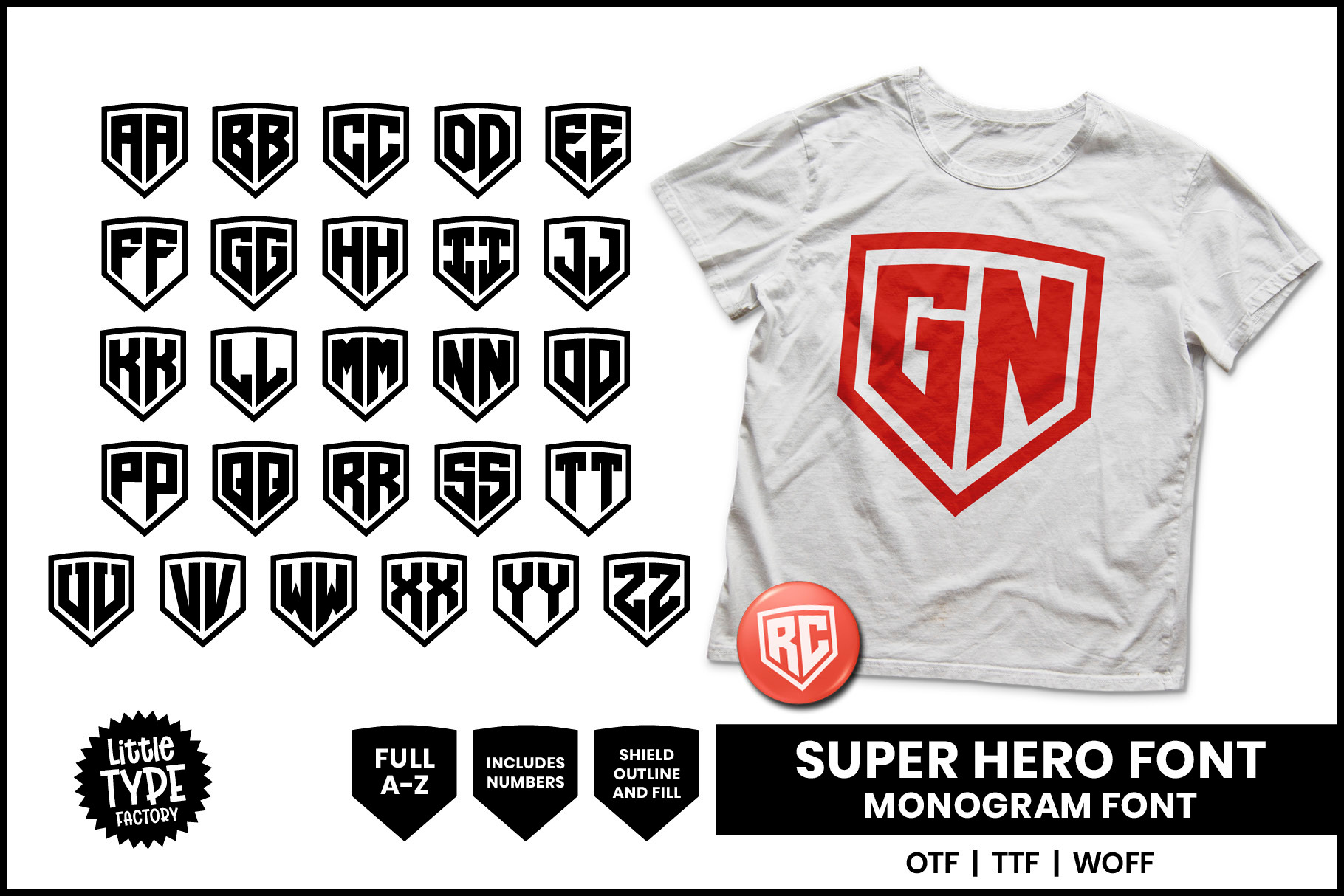
Super Hero Font | Monogram Shield
Super Hero Font | The Ultimate Shield Maker Monogram Typeface
Transform your designs into iconic superhero creations with this amazing font!
This superhero font is specifically designed to make it incredibly simple to create your own personalized superhero shield monograms in just seconds. Whether you're crafting for fun, gifting, or branding, this font is your go-to tool!
Features of the Superhero Monogram Font:
2-Letter Monogram Design: This versatile superhero font is perfect for creating logos, icons, and emblems featuring two characters. Inspired by Marvel & DC: Featuring bold styles reminiscent of Marvel fonts, Avengers fonts, and DC Comics fonts, it's perfect for capturing the essence of your favorite superhero universes. Super man Font Generator: This font is in a super man logo font style, complete with shield outline and fill to craft that iconic look. Numbers Included: The font is versatile enough to include numbers, giving you even more options for customization.
Perfect for Every Creative Project:
This marvel font style generator is ideal for gifts, apparel, and custom items for kids or superhero fans. Whether you're using it on t-shirts, mugs, hats, tumblers, ...crafting is easy, it adds a bold, dynamic touch to your creations.
Bring out your inner superhero with the badaboom font-inspired design, ideal for both professional projects and customized gifts. It’s not just a font—it’s a gateway to your own superhero universe.
Unleash your creativity with the super man font, avengers font, and DC Comics-inspired font to elevate your design game today!
SUPER HERO FONT KEY - how to find the letters!
Left Side Letters are Uppercase
Right Side Letters are Lowercase
Left Side Numbers are as expected
Right Side Numbers are... 1 = '!' exclamation mark 2 = '@' at symbol 3 = '#' Hash (US) and '£' Pound (on a standard UK keypad) 4 = '$' Dollar 5 = '%' Percent 6 = '^' Caret 7 = '&' Ampersand 8 = '*' Asterisk 9 = '(' left bracket
Use the letter 'O' for Zero.
Shield block and outline are '0' (zero) and ')' (right bracket).